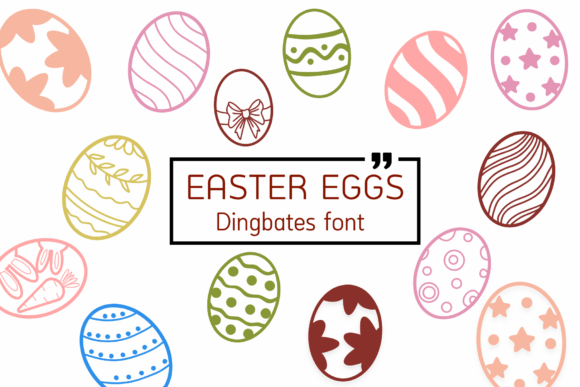
Easter Eggs Font: A Cute and Creative Dingbats Font for Your Easter Projects
Easter is just around the corner, and with it comes the excitement of creating fun and festive projects. If you’re looking for a unique and creative way to add some Easter flair to your designs, look no further than the Easter Eggs font. This adorable dingbats font is perfect for a variety of creative projects, from wedding invitations to DIY crafts and decorations.
What is Easter Eggs Font?
Easter Eggs font is a dingbats font that features a cute and playful Easter theme. The font includes a variety of Easter-themed images, such as Easter eggs, bunnies, and other festive icons. This font is perfect for anyone looking to add a touch of Easter whimsy to their designs.
Features of Easter Eggs Font
Easter Eggs font has several features that make it a great choice for your creative projects. Some of the key features include:
- Cute and playful design: The Easter Eggs font features a cute and playful design that’s perfect for Easter-themed projects.
- Easter-themed images: The font includes a variety of Easter-themed images, such as Easter eggs, bunnies, and other festive icons.
- Dingbats font: Easter Eggs font is a dingbats font, which means it’s made up of images rather than letters.
Uses for Easter Eggs Font
Easter Eggs font can be used for a variety of creative projects, including:
- Wedding invitations: Add a touch of Easter whimsy to your wedding invitations with the Easter Eggs font.
- DIY crafts: Use the Easter Eggs font to create fun and festive DIY crafts, such as Easter egg decorations and bunny-themed signs.
- Decorations: Use the Easter Eggs font to create festive decorations, such as Easter-themed banners and garlands.
- Logos: Use the Easter Eggs font to create cute and playful logos for your business or personal brand.
- Social media graphics: Use the Easter Eggs font to create fun and festive social media graphics, such as Easter-themed Facebook posts and Twitter headers.
Tips for Using Easter Eggs Font
Here are some tips for using the Easter Eggs font:
- Use it sparingly: Use the Easter Eggs font sparingly to avoid overwhelming your design.
- Mix and match: Mix and match the Easter Eggs font with other fonts to create a unique and interesting design.
- Experiment with colors: Experiment with different colors to find the perfect combination for your design.
- Have fun: Most importantly, have fun and be creative!
Easter Eggs font is a cute and creative dingbats font that’s perfect for Easter-themed projects. With its playful design and Easter-themed images, it’s a great choice for anyone looking to add some Easter whimsy to their designs. Whether you’re creating wedding invitations, DIY crafts, or social media graphics, the Easter Eggs font is a great choice. So why not give it a try and see what creative projects you can come up with?
- What is Easter Eggs font?
- Easter Eggs font is a dingbats font that features a cute and playful Easter theme.
- What can I use Easter Eggs font for?
- Easter Eggs font can be used for a variety of creative projects, including wedding invitations, DIY crafts, decorations, logos, and social media graphics.